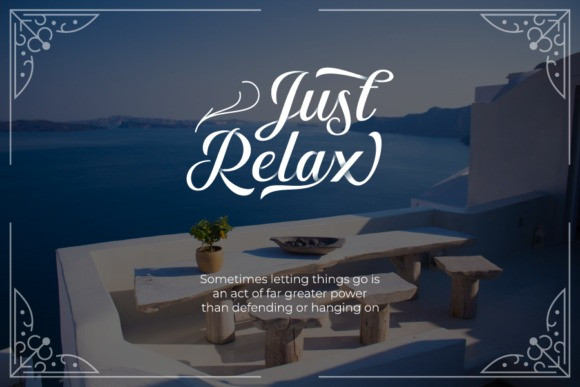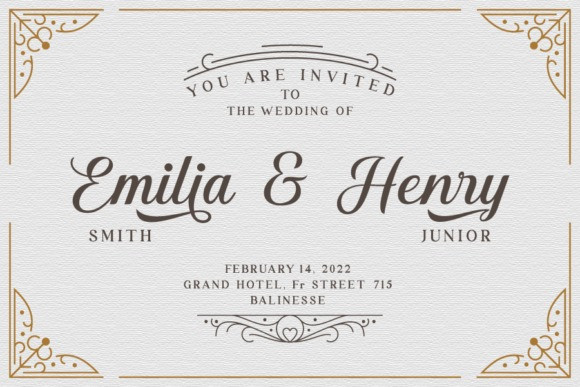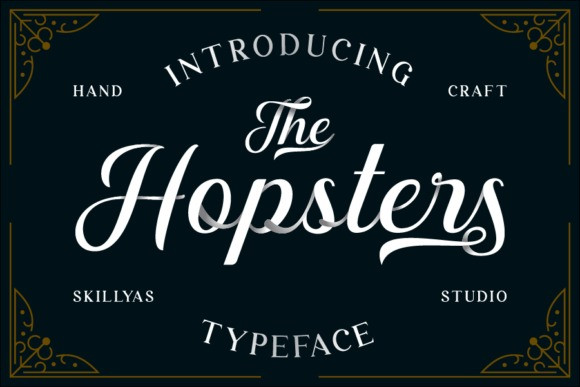
Hopsters Font
Hopster Calligraphy Font is a beautiful and refined script font. It has a classy, elegant and modern look that can be used for logos, branding, invitations, stationery, wedding designs, social media posts, and much more! Hopster is PUA encoded which means you can access all of the glyphs and swashes with ease!